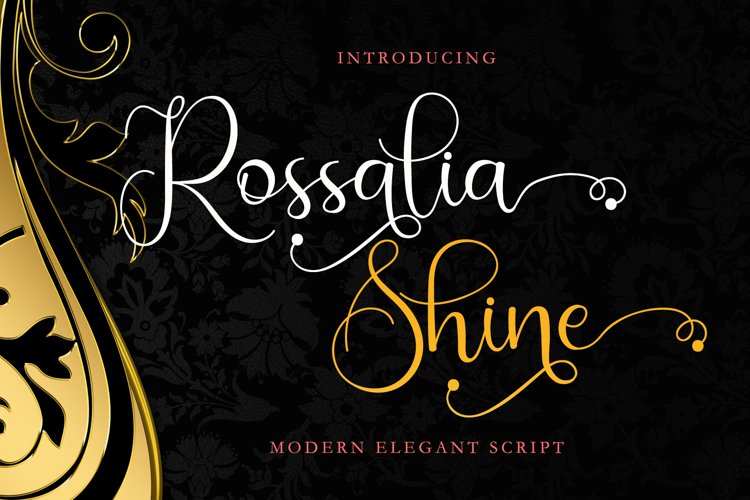
Rossalia Shine is beautiful elegant and classy font in modernity. This font will make your design shine bright like a star!!!
Rossalia Shine can be used for wide ranges of application, such as wedding design, logo, invitations, social media posts, and others.
+More than 300 Glyphs
+PUA-Encoded additional character for swashes and ligatures
+Multilingual glyphs.